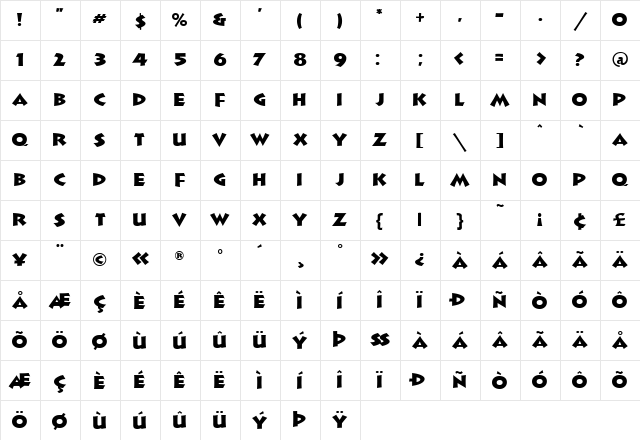
LHF Chunky Block Regular
Foundry: Letterhead Fonts
Designer: Rob Cooper
LHF Chunky Block Family
Design Context for LHF Chunky Block
LHF Chunky Block is a composed and adaptable typeface that performs quietly and consistently across a wide range of design contexts.